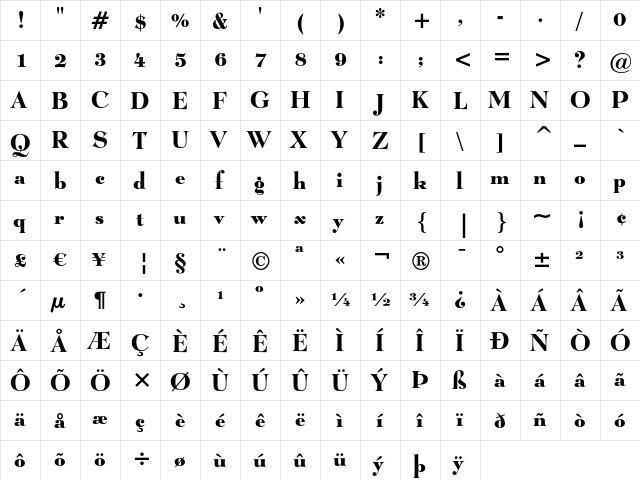
Lucian Bold
Design Context for Lucian Typeface
Lucian is a composed and adaptable typeface that performs quietly and consistently across a wide range of design contexts. The heavy weight commands attention and anchors typographic hierarchies.